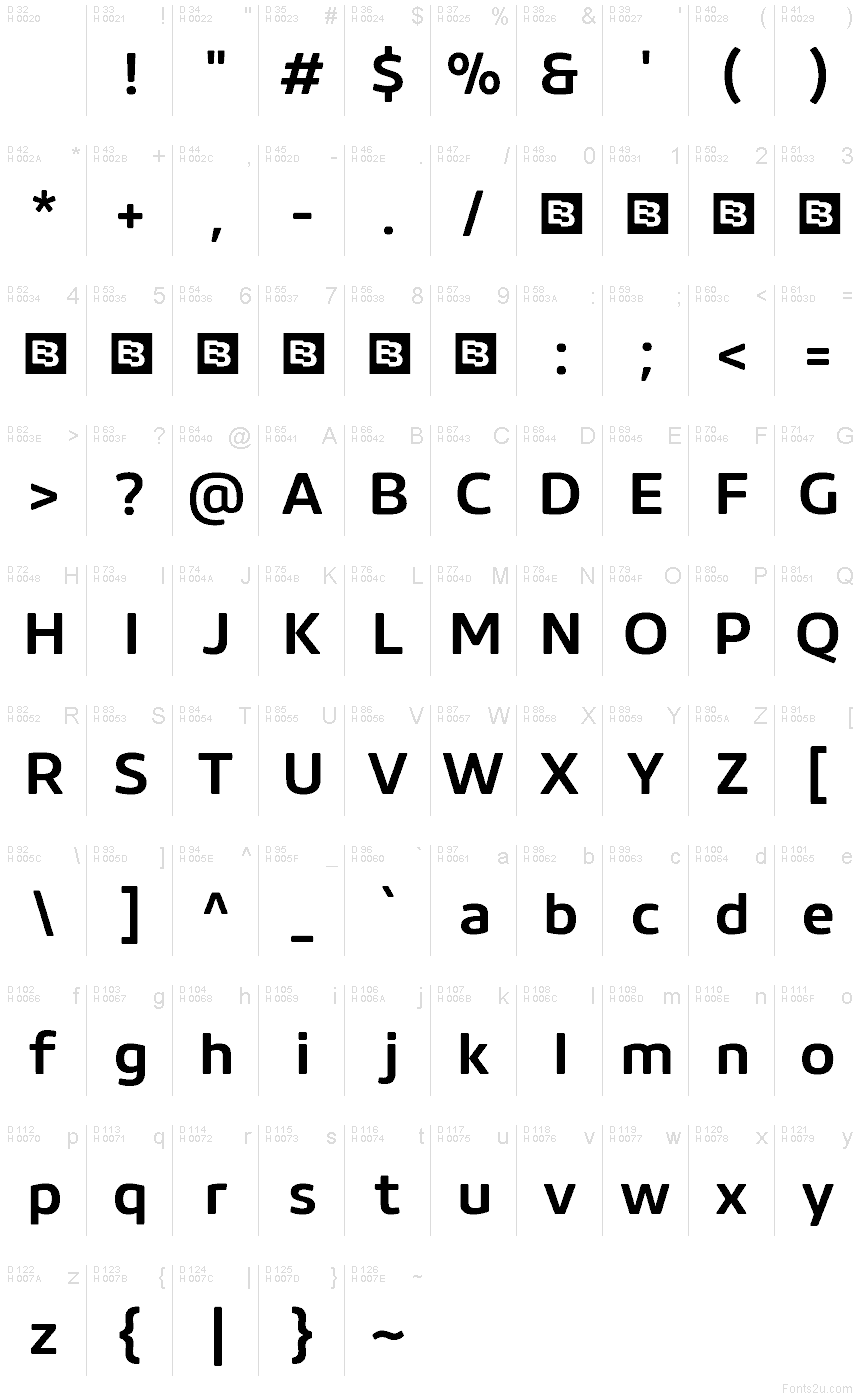
Digiva Trial Semi Bold
Digiva Semi Bold font by Eko Bimantara is a sleek, modern, and geometric sans serif font with clean lines perfect for minimalistic designs. This free font is defined by its elegant stylistic design that was put together to accommodate logos and editorial publications.